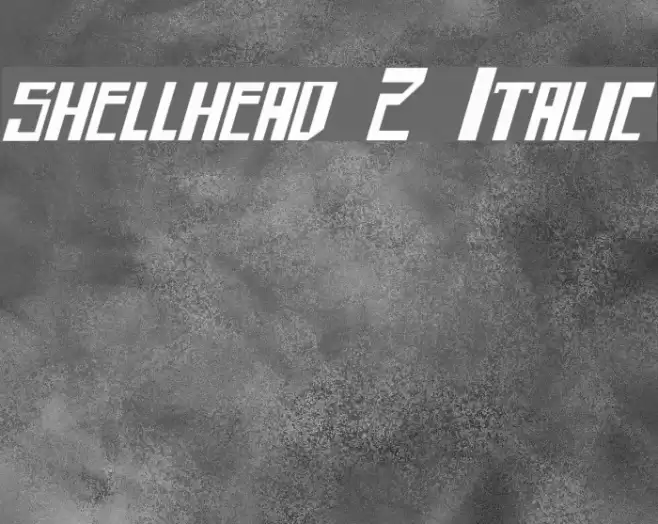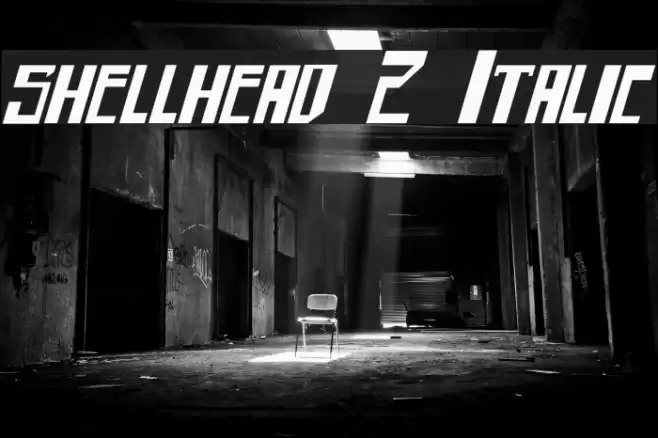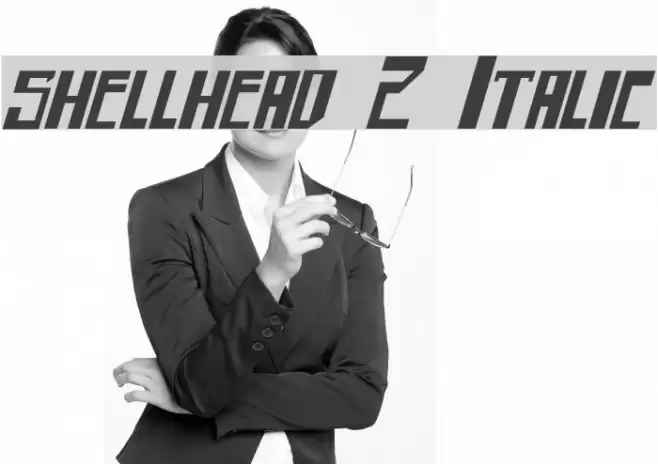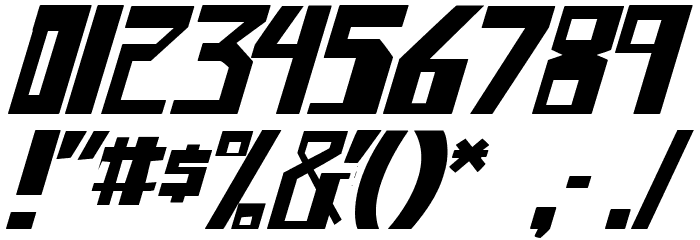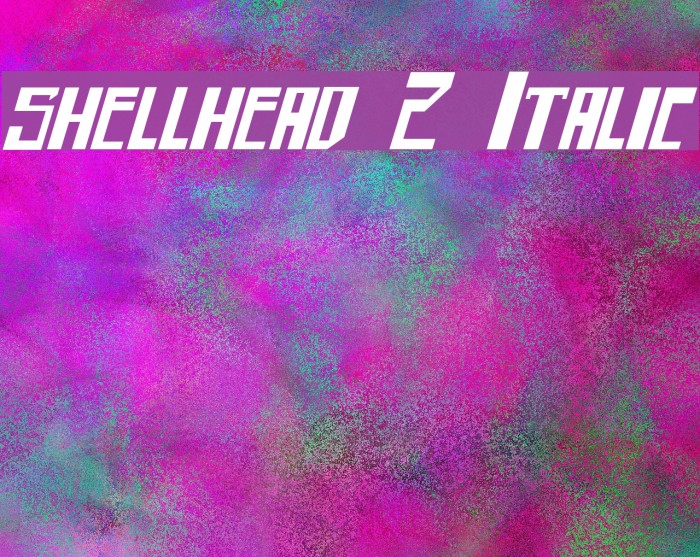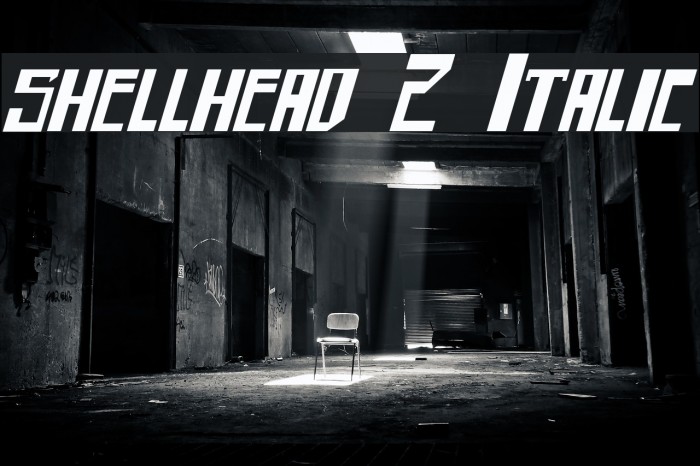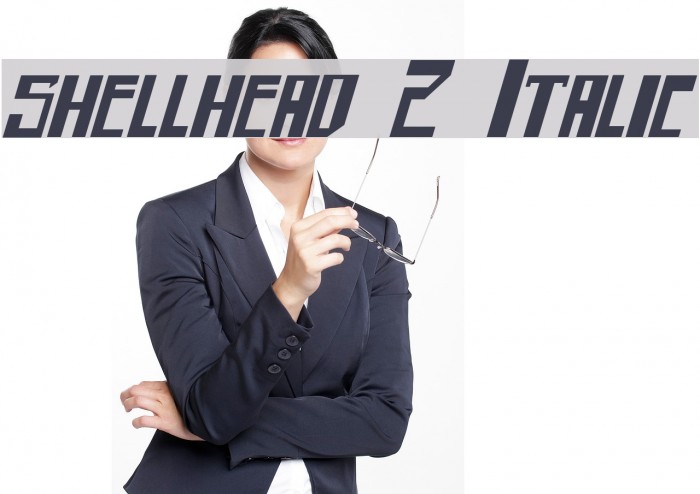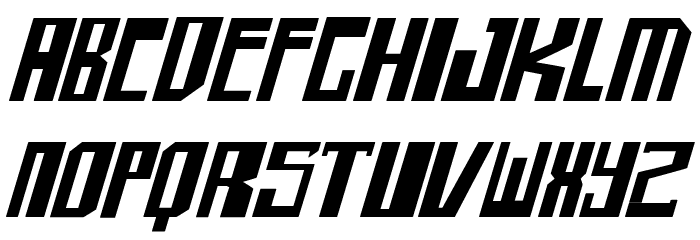
shellhead 2 Italic Font
shellhead 2 Italic Description
This font features a bold and dynamic design with a strong italic slant, giving it a sense of motion and energy. The characters are angular and geometric, with sharp edges and a futuristic appearance. The uppercase letters are particularly striking, with a consistent height and width that create a cohesive look. The numerals and special characters maintain the same bold style, ensuring uniformity across all text elements. This font is ideal for projects that require a modern and impactful visual presence.
A bold, italic, and angular font with a futuristic style from Futuristic fonts.
- Proposed Projects: Perfect for sports branding, tech logos, video game titles, and dynamic posters.